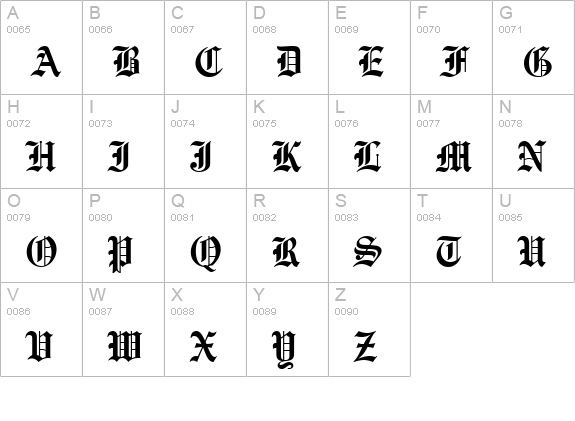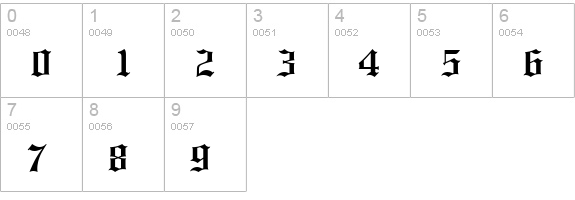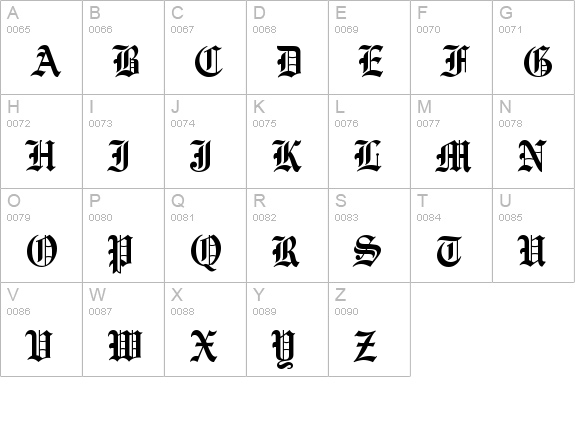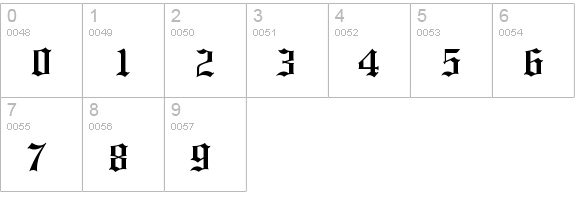
Old English ATT Font Details
Immerse yourself in the rich history and elegance of Old English with the exquisite Old English ATT font. This timeless typeface exudes a sense of tradition and sophistication, making it perfect for projects that require a touch of vintage charm. With its intricate details and ornate flourishes, Old English ATT brings a sense of old-world craftsmanship to your designs. Best of all, Old English ATT is available for free download at FontsMarket.com. This means you can easily add this stunning font to your collection without any cost, allowing you to enhance your projects with its classic beauty. Whether you're working on invitations, posters, or branding materials, Old English ATT is sure to make a lasting impression with its historic appeal and intricate design. Download it today and elevate your designs with the timeless allure of Old English ATT.